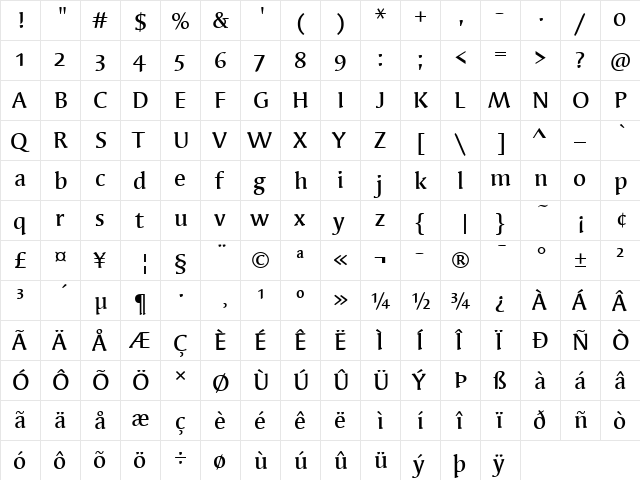
SyndorOSITC Medium
Design Context for SyndorOSITC Typeface
SyndorOSITC offers clean, dependable letterforms without strong stylistic allegiance, making it a practical choice for designers who need flexibility.
Pro Tip: Use SyndorOSITC in both headline and body roles to test its range before committing to a single application.